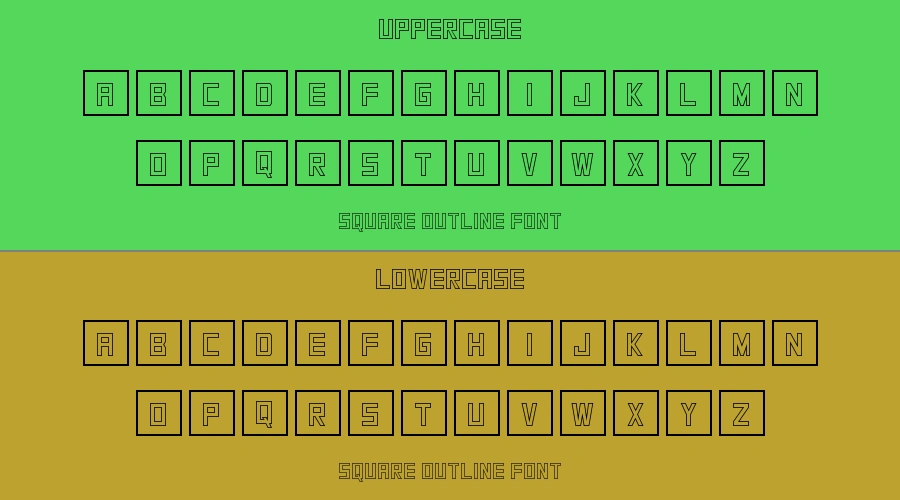
About Square Outline Font
Square Outline Font stands out for its distinctive combination of subtle details and textural richness. Ideal for corporate identity, it provides the endurance and artistic value that professional projects demand. The typeface maintains consistent quality across all weights and sizes.
Key features include refined ornamental details and practical lining figures, enhancing typographic expression. In brand logos applications, Square Outline Font demonstrates exceptional impact retention. The cap height ratio and artistic merit contribute to its distinctive character and professional appeal.